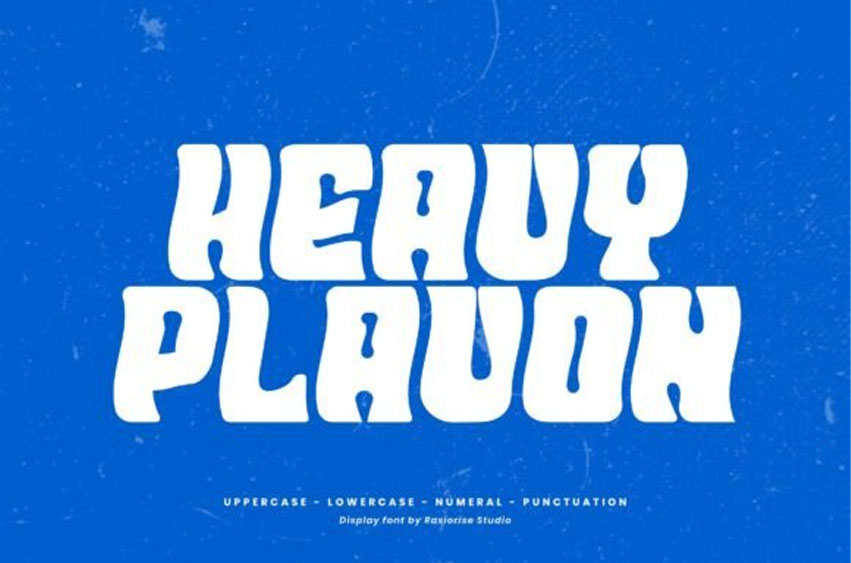
Heavy Plavon Font
Heavy Plavon Font is a super-bold, incredibly impactful display font that captures the essence of 1970s psychedelic design with a modern, clean execution. Its extraordinarily chunky, rounded forms and soft, fluid curves make it instantly recognizable, giving off a fun, groovy, and slightly exaggerated retro vibe.
This font is perfect for album covers, trendy apparel, vibrant posters, bold merchandise, and any project that needs a heavy, confident, and unforgettable headline with a strong vintage personality.